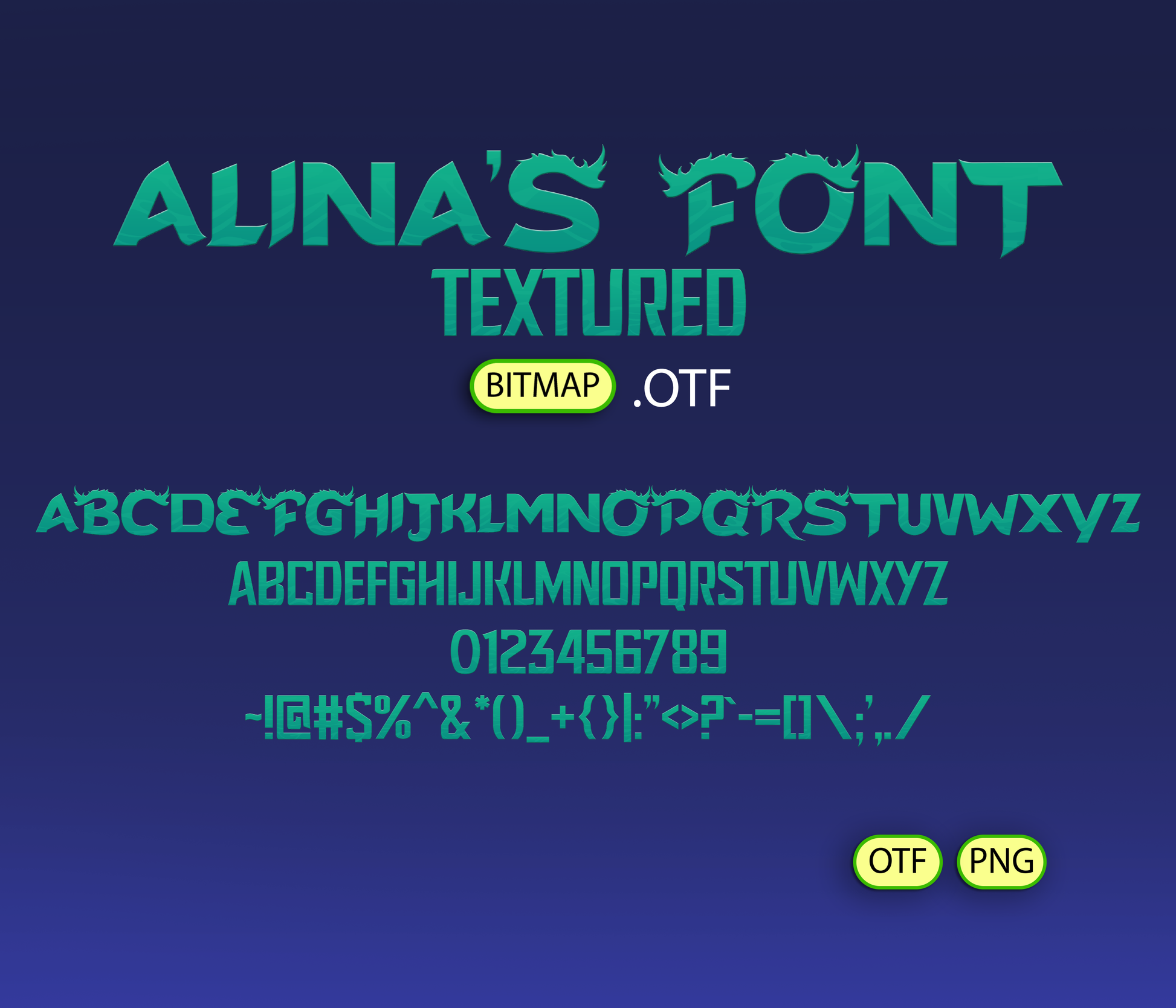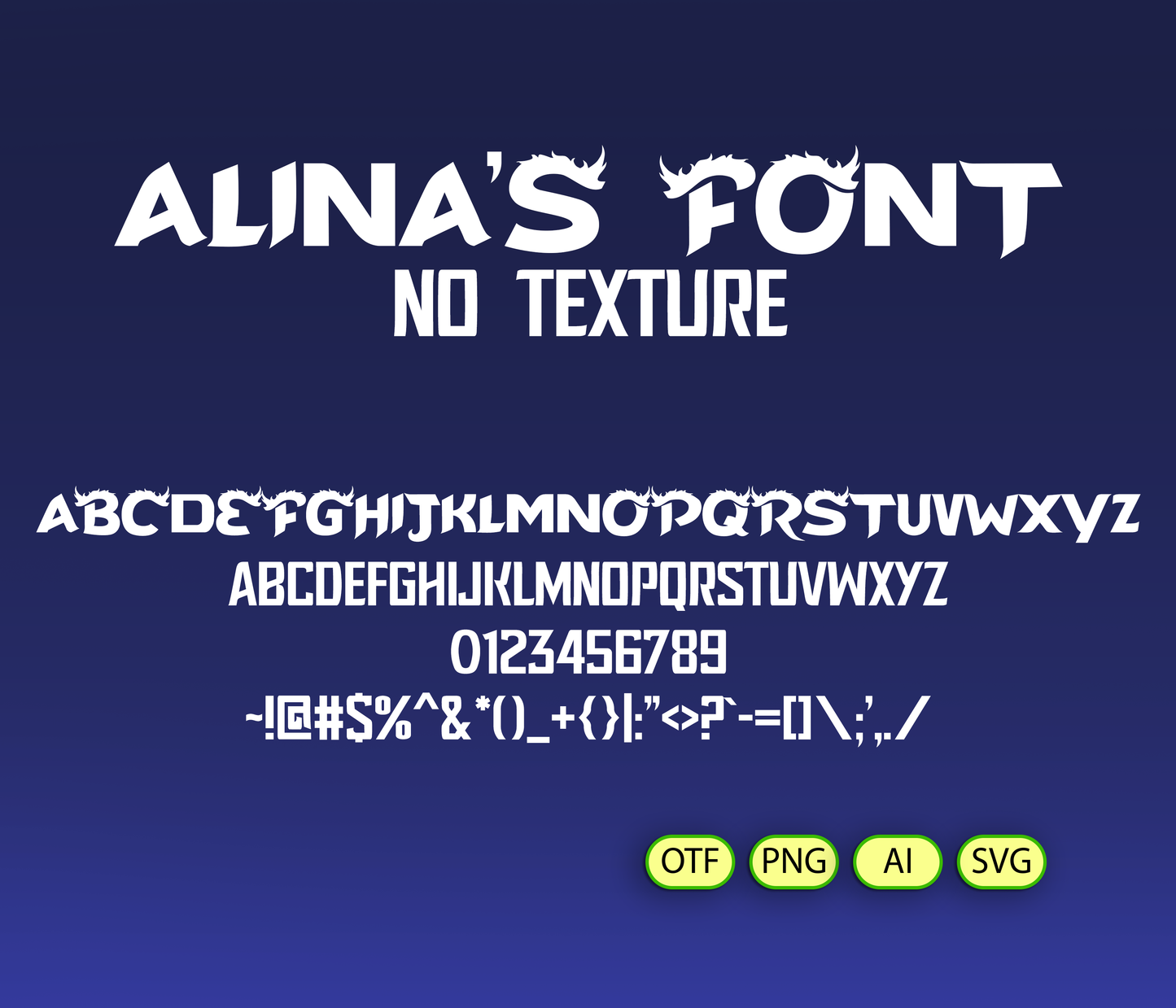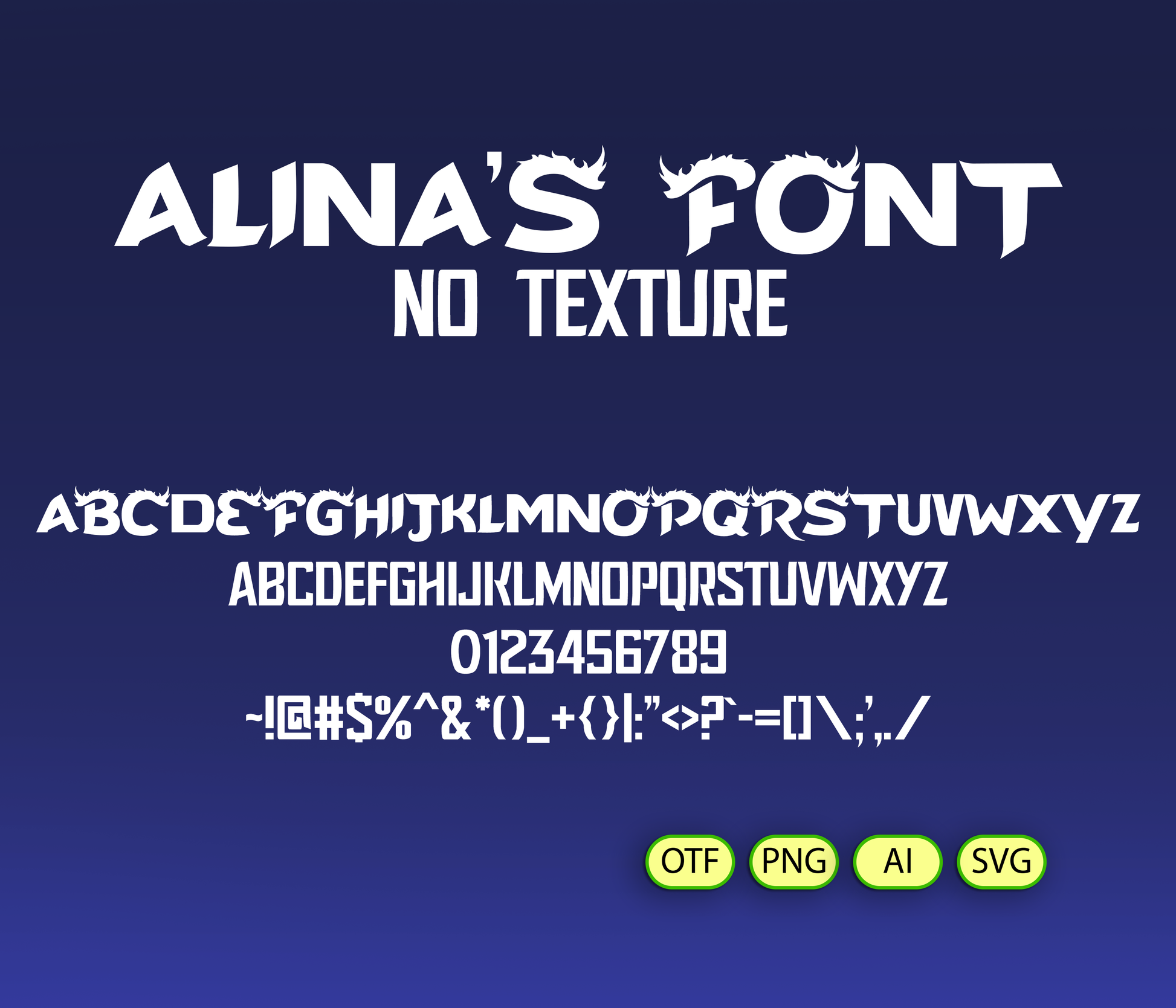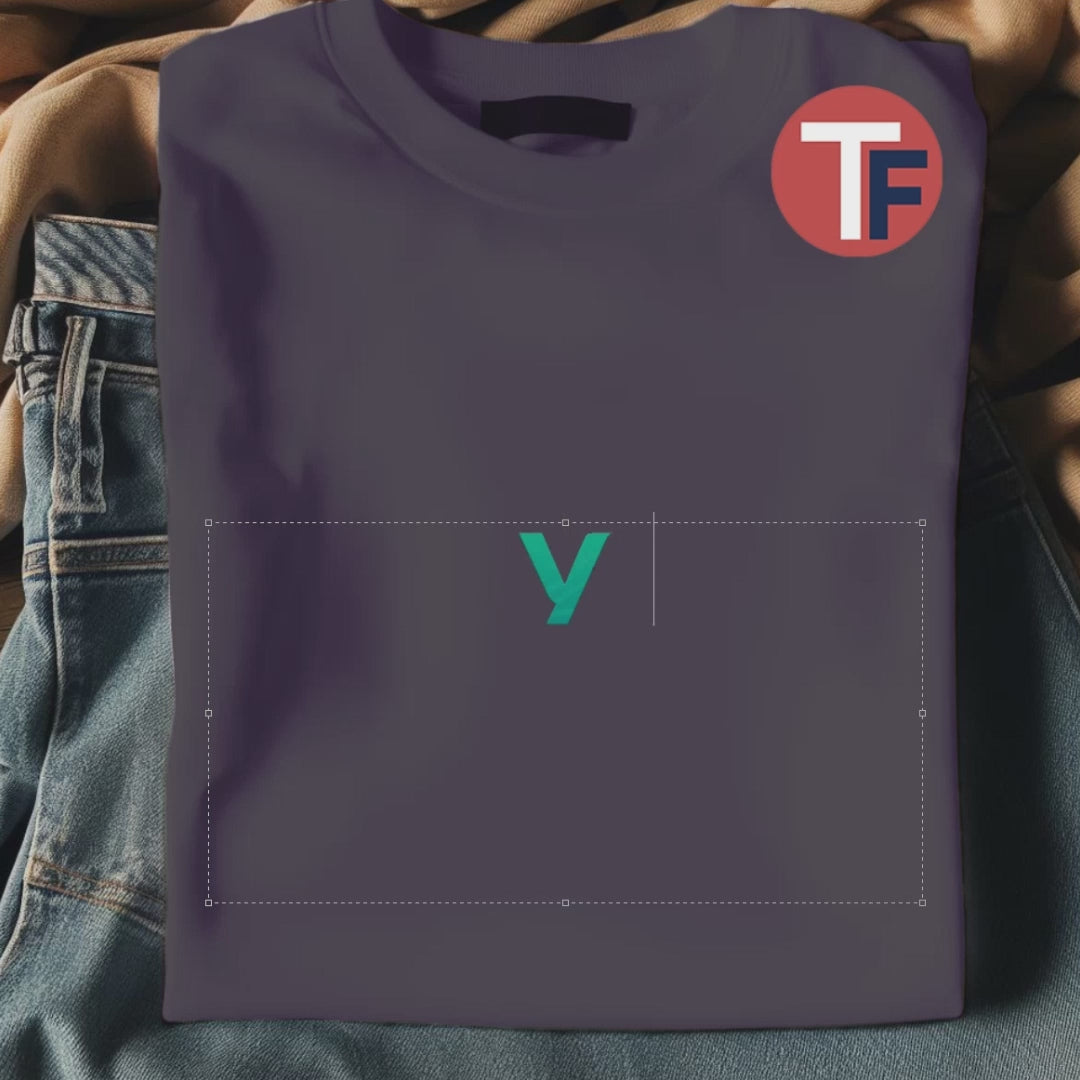
Guardian Warrior Font Textured
Embark on a Magical Journey with the Guardian Warrior Font
Immerse yourself in the enchanted world with our Guardian Warrior-inspired font, designed to capture the mystical and adventurous spirit of a beloved tale. Perfect for fans, event planners, and designers looking to add Southeast Asian-inspired magic to their projects, this font brings the vibrant and captivating essence of the story to your creations. Whether crafting event invitations, themed merchandise, or digital content, our Guardian Warrior font ensures your projects resonate with beauty and wonder.
Our Guardian Warrior-inspired font features elegant, flowing lines and intricate details reflecting the rich cultural aesthetics and adventurous themes. Ideal for various applications:
Our Guardian Warrior-inspired font includes both textured and non-textured variants for maximum usability and flexibility. The non-textured version ensures compatibility with all types of software, including Canva, making it accessible and easy to use across various digital and print platforms.
Our Guardian Warrior font not only pays homage to the enchanting story but also empowers you to infuse your designs with its mystical and adventurous spirit. Whether crafting promotional materials, designing unique merchandise, or adding Southeast Asian magic to personal projects, this font lets you communicate with the elegance and wonder that define the journey. Ready to bring a world of adventure and beauty to your creative endeavors? This font is your key to unlocking captivating and magical design.